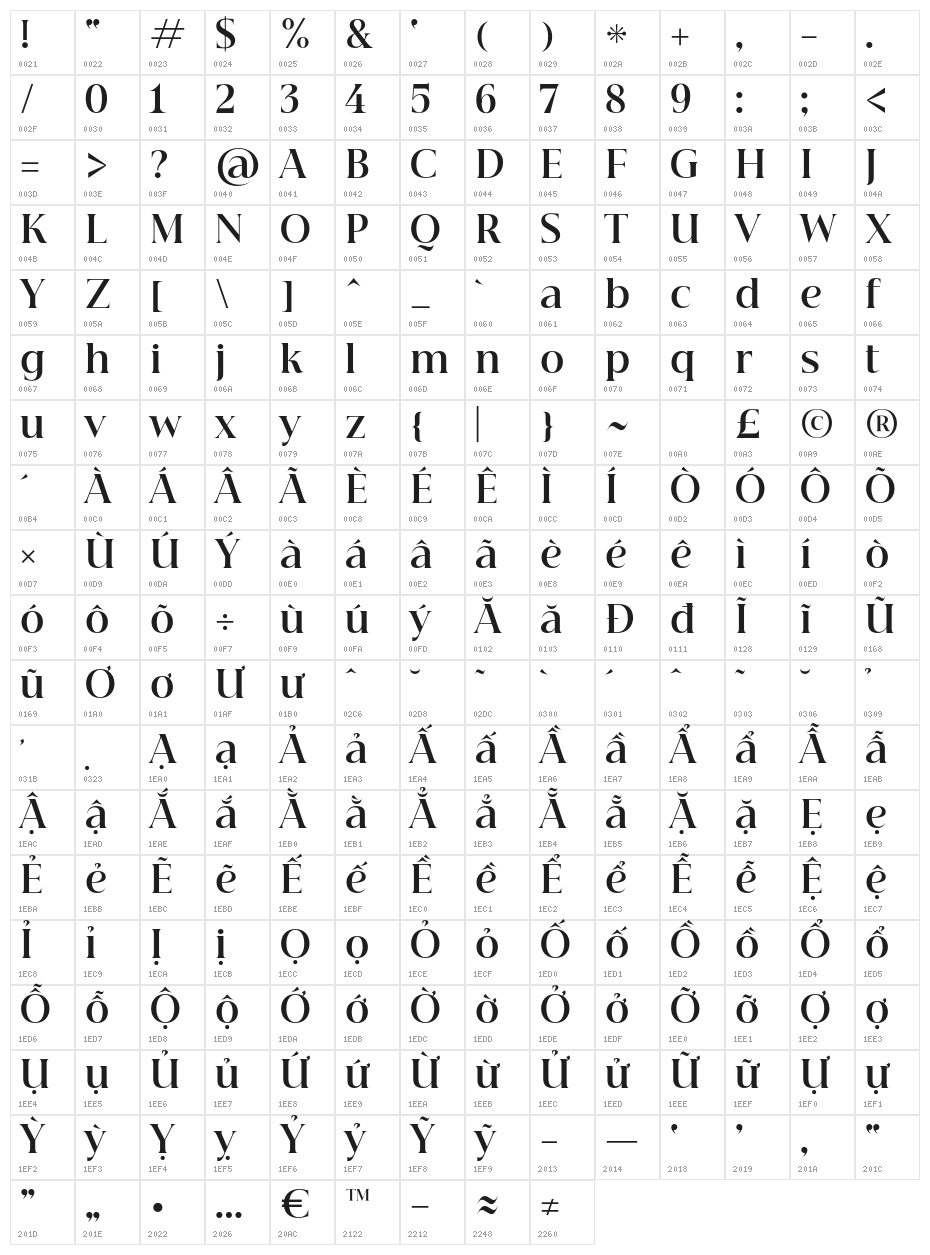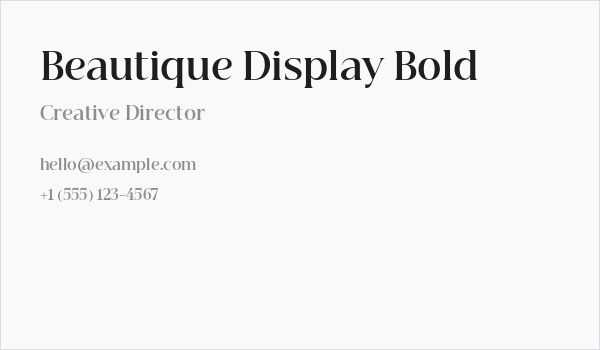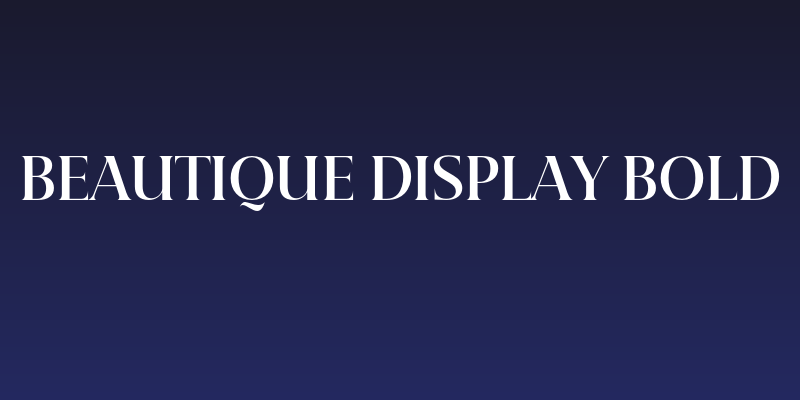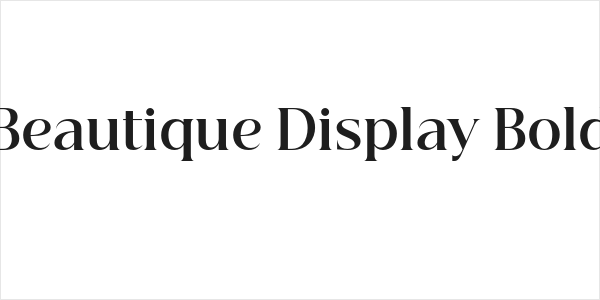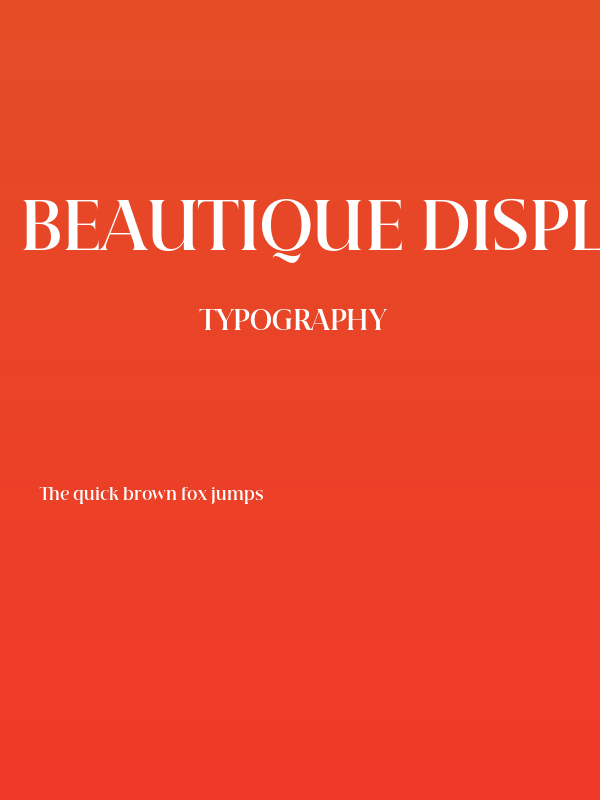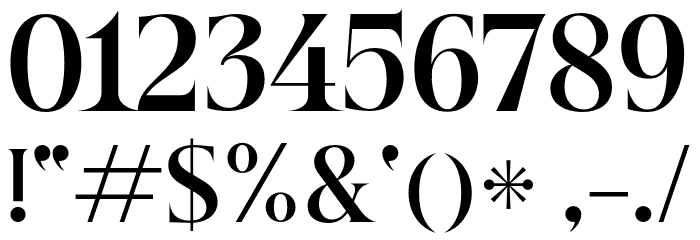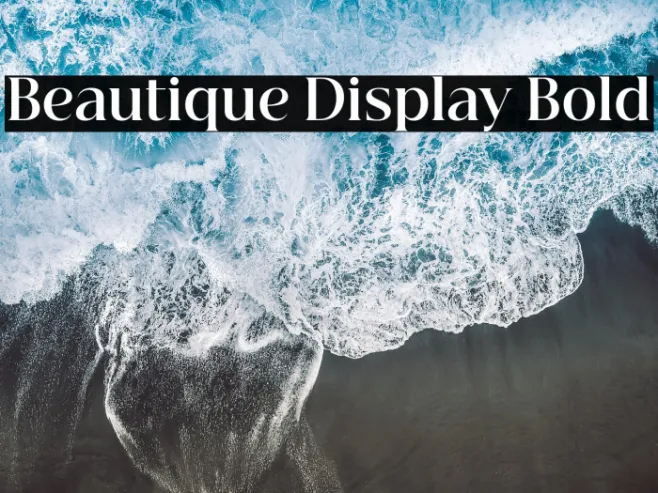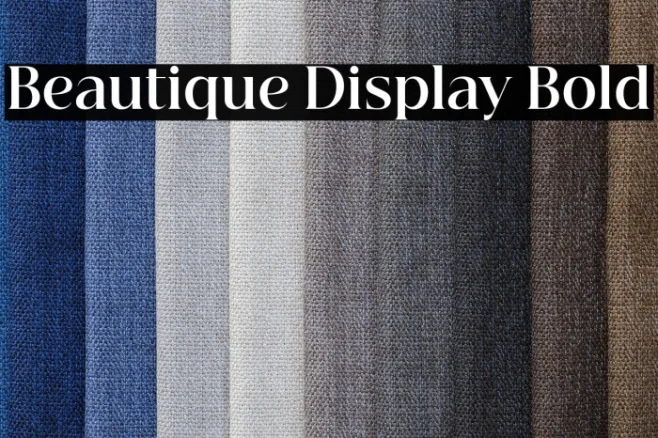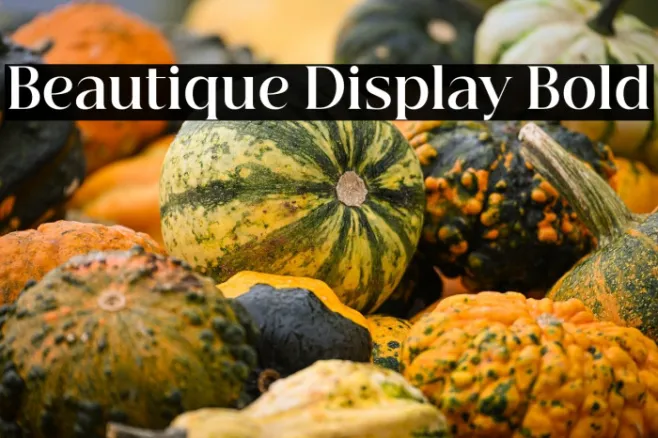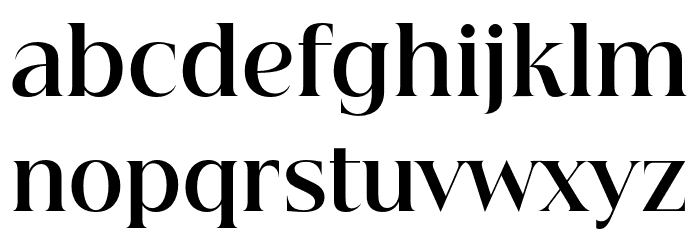
Beautique Display Bold Font
Beautique Display Bold Description
This font exhibits a bold and elegant style with high contrast between thick and thin strokes, giving it a sophisticated and classic appearance. The serifs are pronounced, adding a touch of formality and tradition. The uppercase letters are tall and commanding, while the lowercase letters maintain a balanced and harmonious flow. The numerals are distinct and clear, making them easily readable. Special characters are well-integrated, maintaining the overall aesthetic of the font. This font is designed to make a statement, suitable for projects that require a touch of elegance and authority.
| Proposed Projects | Ideal for luxury branding, editorial design, high-end packaging, and formal invitations. |